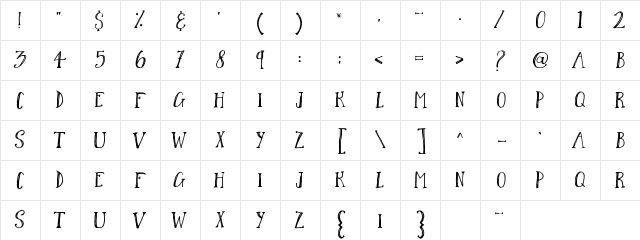
Silverwaves Regular Free Font
Silverwaves Regular
Complete Silverwaves Regular glyph index. Displaying only characters natively supported by Silverwaves Regular font.
Design Context for Silverwaves
Silverwaves is a composed and adaptable typeface that performs quietly and consistently across a wide range of design contexts.